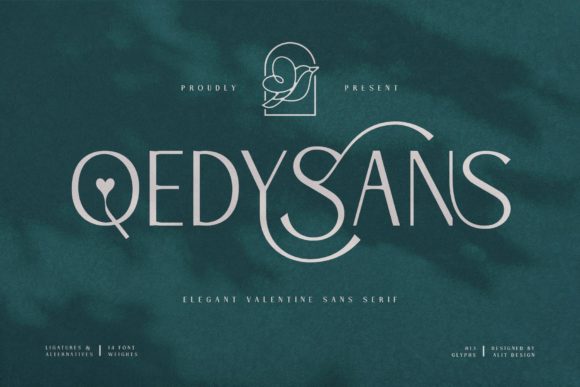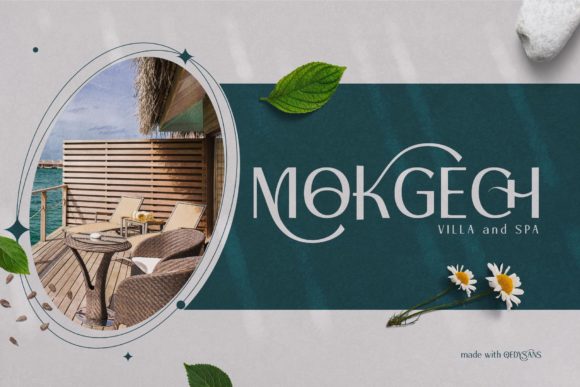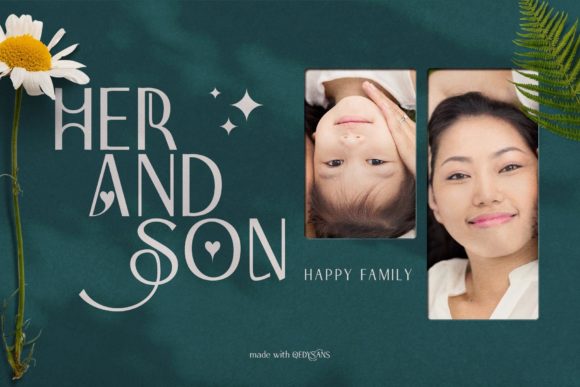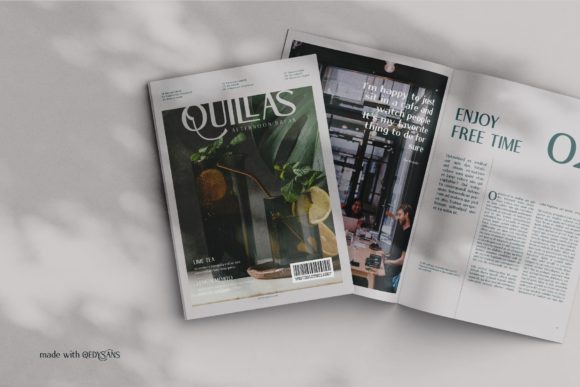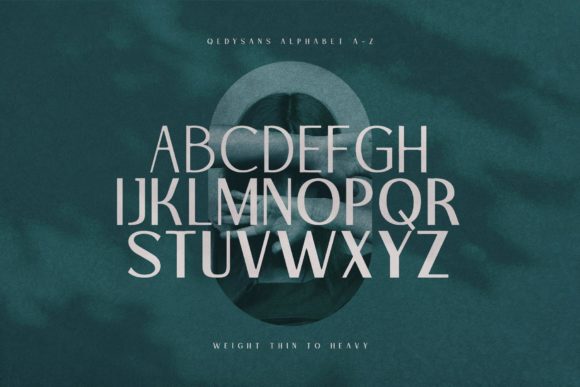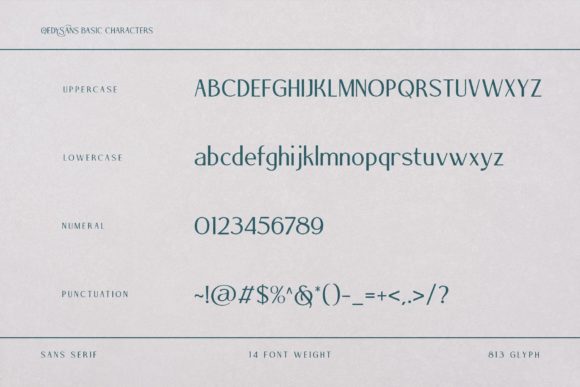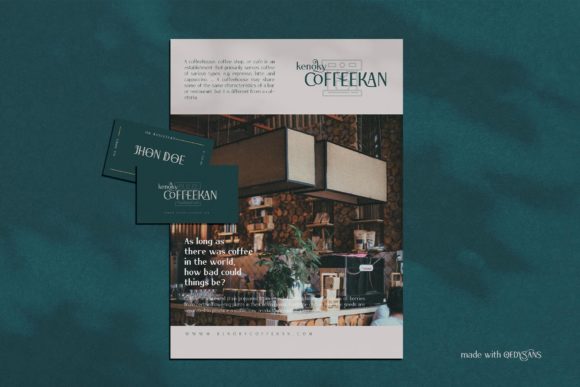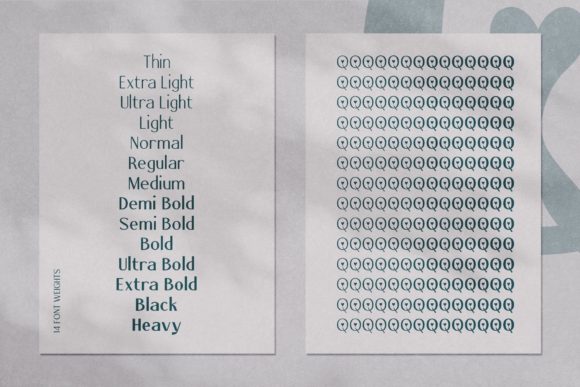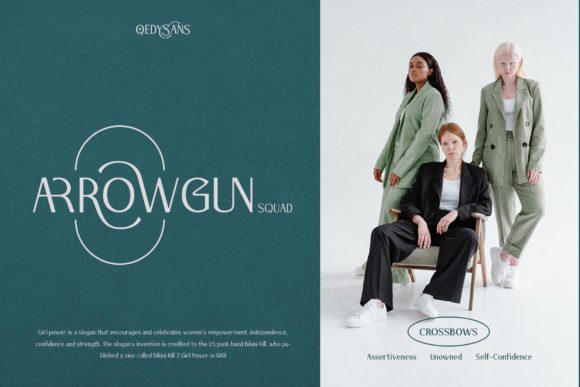
Qedysans Font
Introducing QEDYSANS Typeface
QEDYSANS is a sans serif font that has an elegant romantic concept. It can be used for body text and header text.
Qedysans is suitable for design concepts that are elegant, simple, minimalist, and romantic. It can be used for wedding card designs, shop signs, logotypes, promotions on Instagram, and so on.